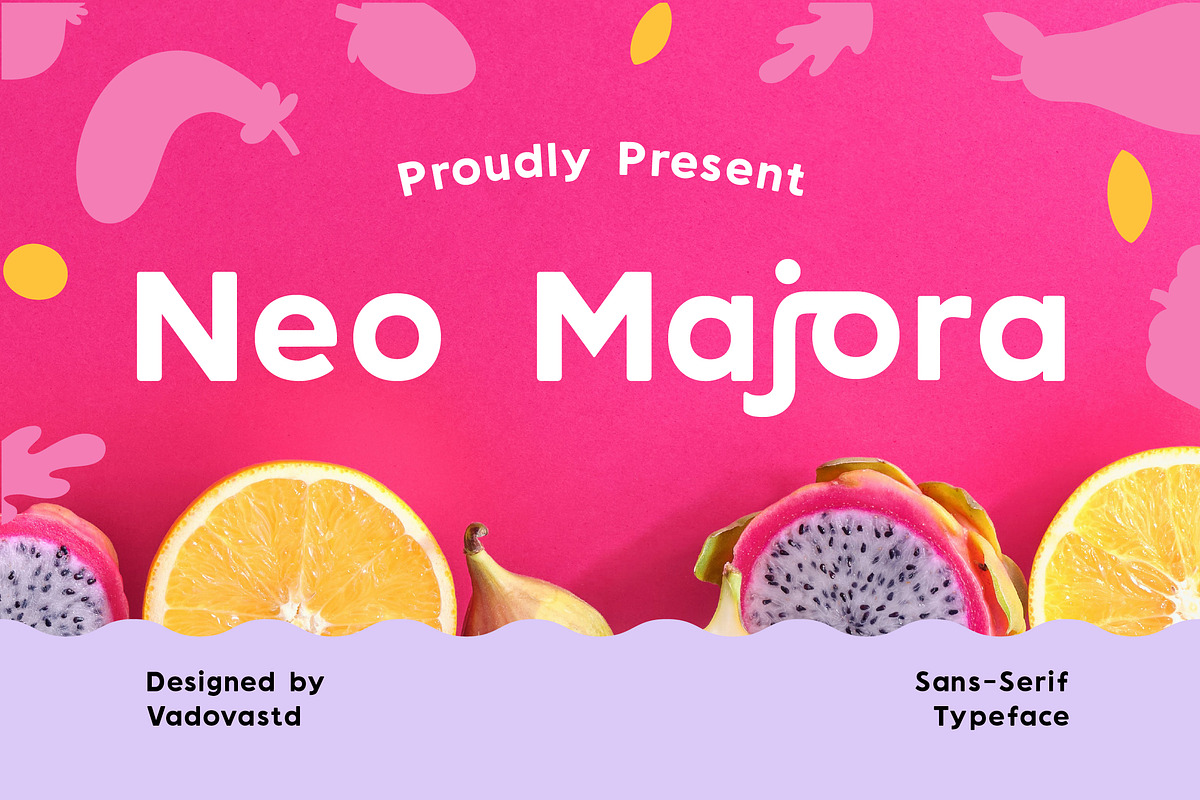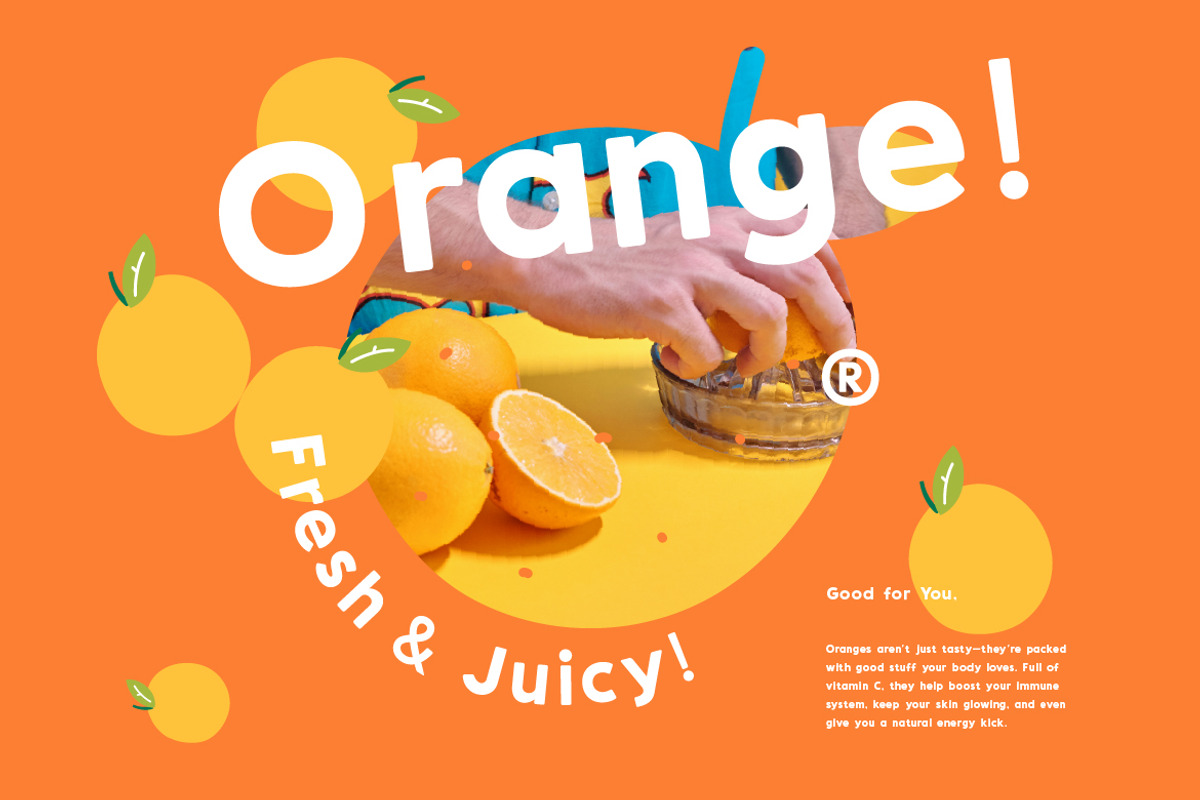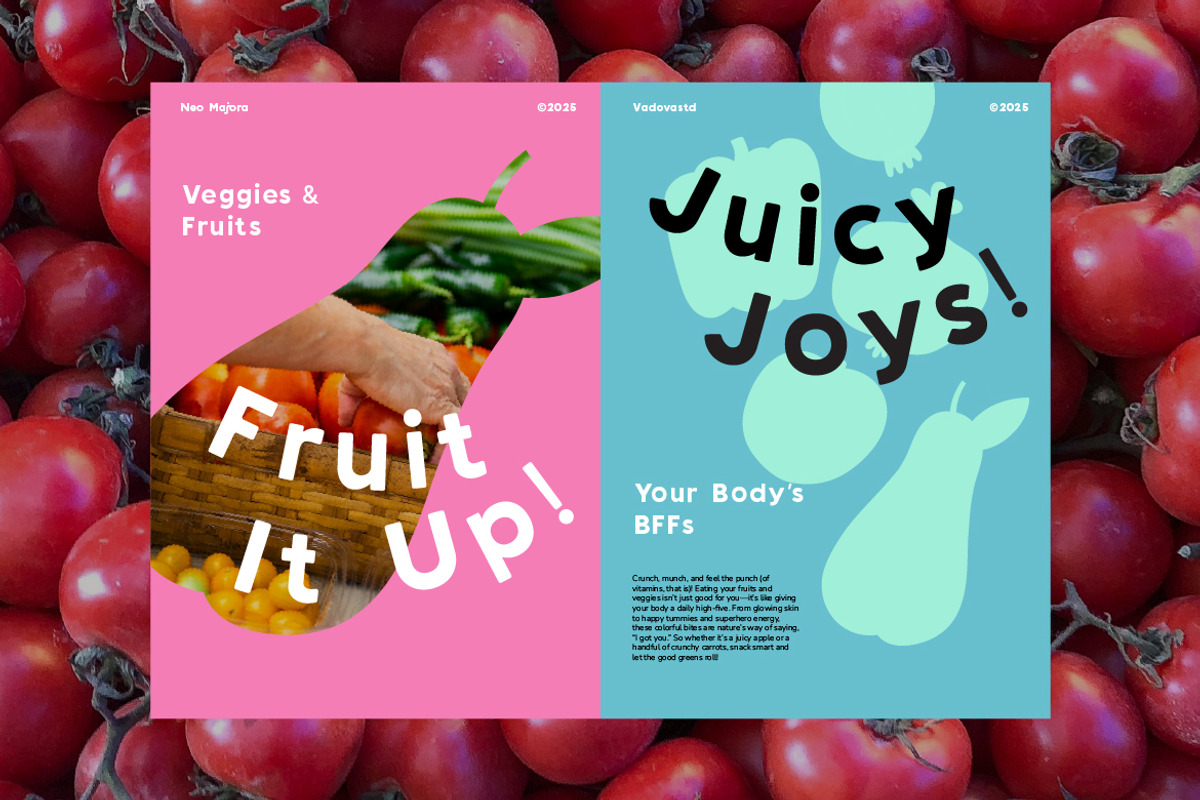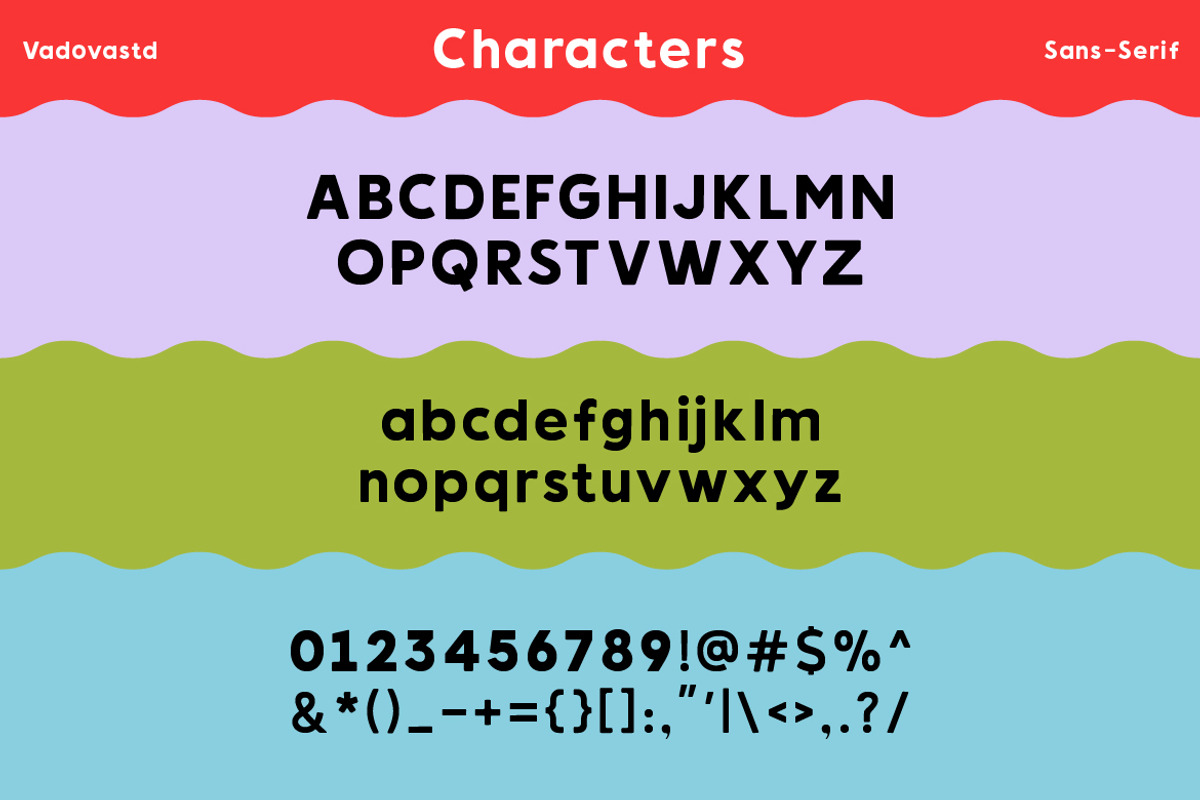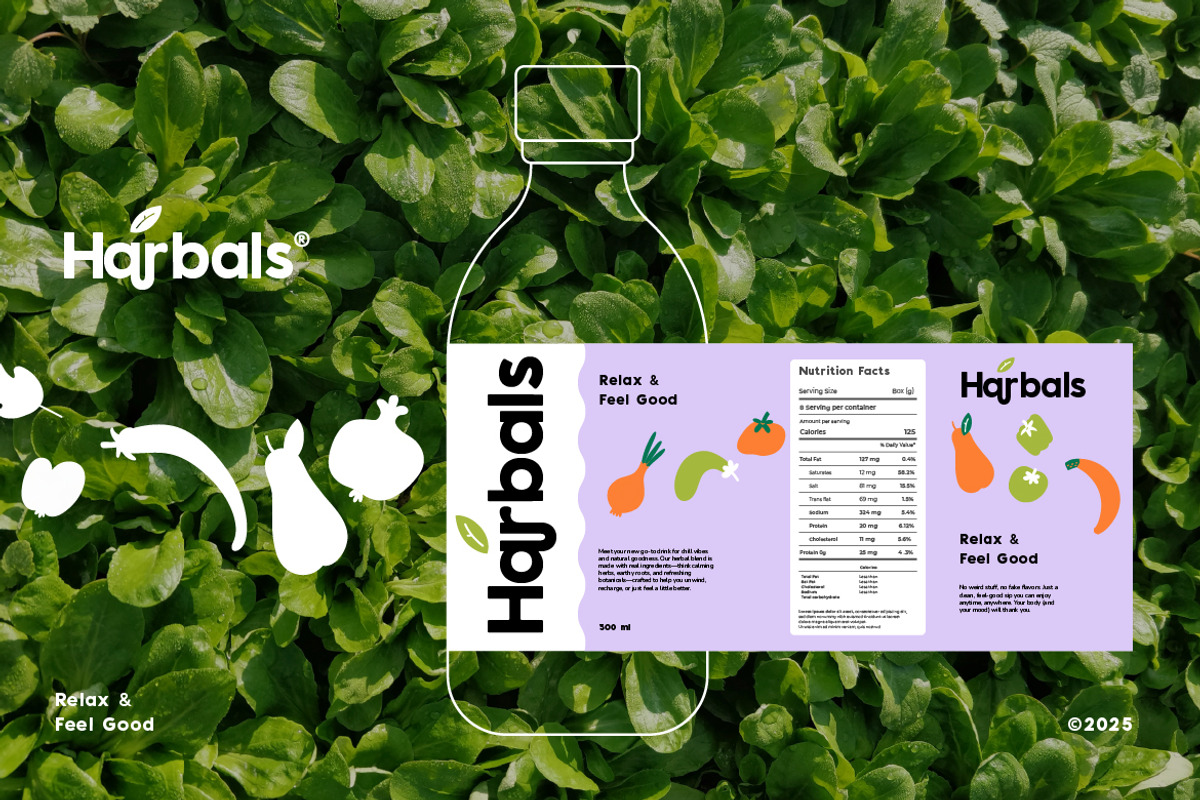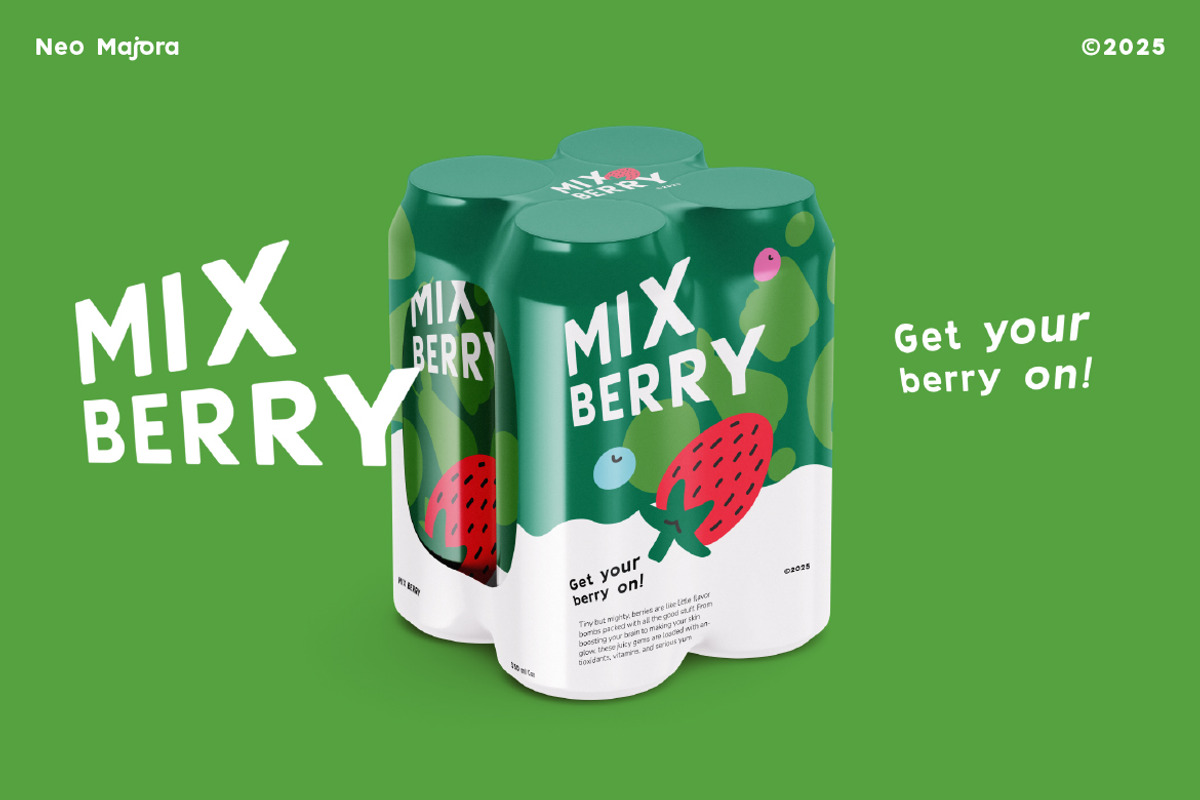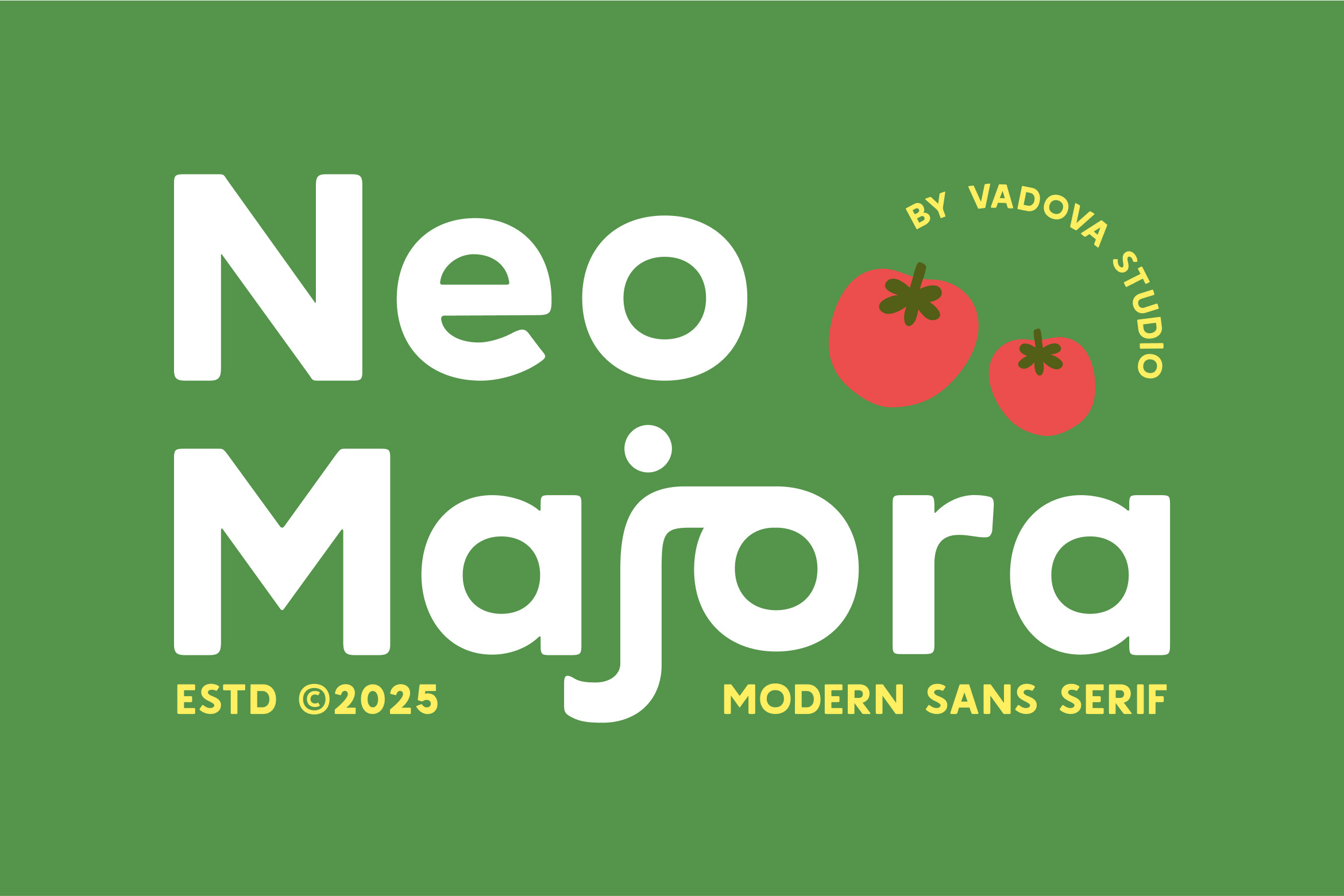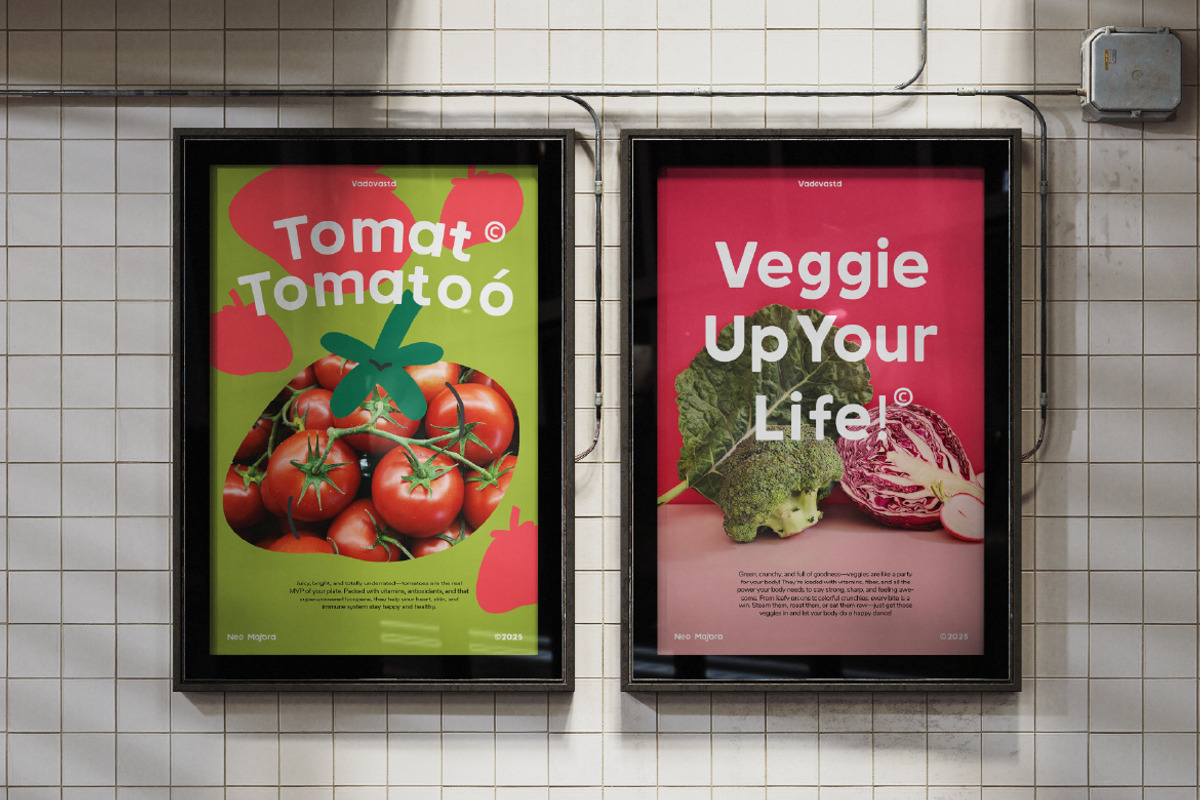
Neo Majora Modern Sans Serif Font
Neo Majora is a fun and friendly modern sans serif typeface that brings a bright personality to any design project. With its soft curves, geometric construction, and unique stylistic touches like the alternate “j” and “a” forms, this font is ideal for both children-focused and lifestyle-themed designs. The character set includes uppercase and lowercase letters, numerals, punctuation, and symbols, all carefully spaced and balanced to ensure legibility and visual charm.
Neo Majora is highly relevant for designers and brands looking to infuse warmth, clarity, and modern charm into their work. It’s especially effective for kids’ content, family brands, food or organic product packaging, children’s books, classroom printables, social media visuals, and minimalist yet friendly design themes. Its balance of modern structure and playful personality makes it a versatile font that adapts across both casual and commercial projects.
- Rounded geometric sans-serif structure with a modern tone
- Smooth terminals and gentle curves that enhance visual softness
- Balanced proportions and consistent weight for clean readability
- Carefully tuned spacing for optimal use in headlines and body text
- Multilingual support and full punctuation for broad design flexibility
- Brand identity systems that aim for a fun personality
- UI/UX design for lifestyle, kids, or wellness-themed apps
- Editorial layouts, magazines, and zines with a creative tone
- Product packaging for food, toys, cosmetics, or handmade goods
- Social media templates, ads, and digital kits needing a friendly look
Neo Majora brings playful clarity and modern charm to your creative designs